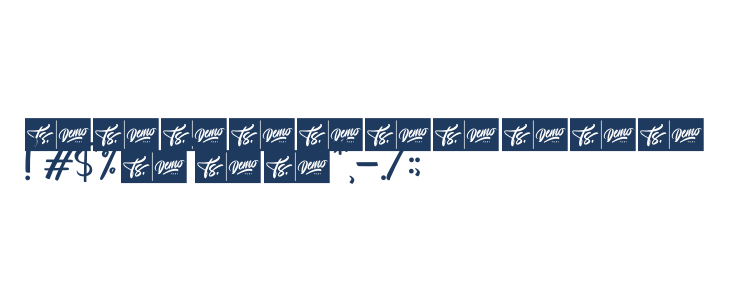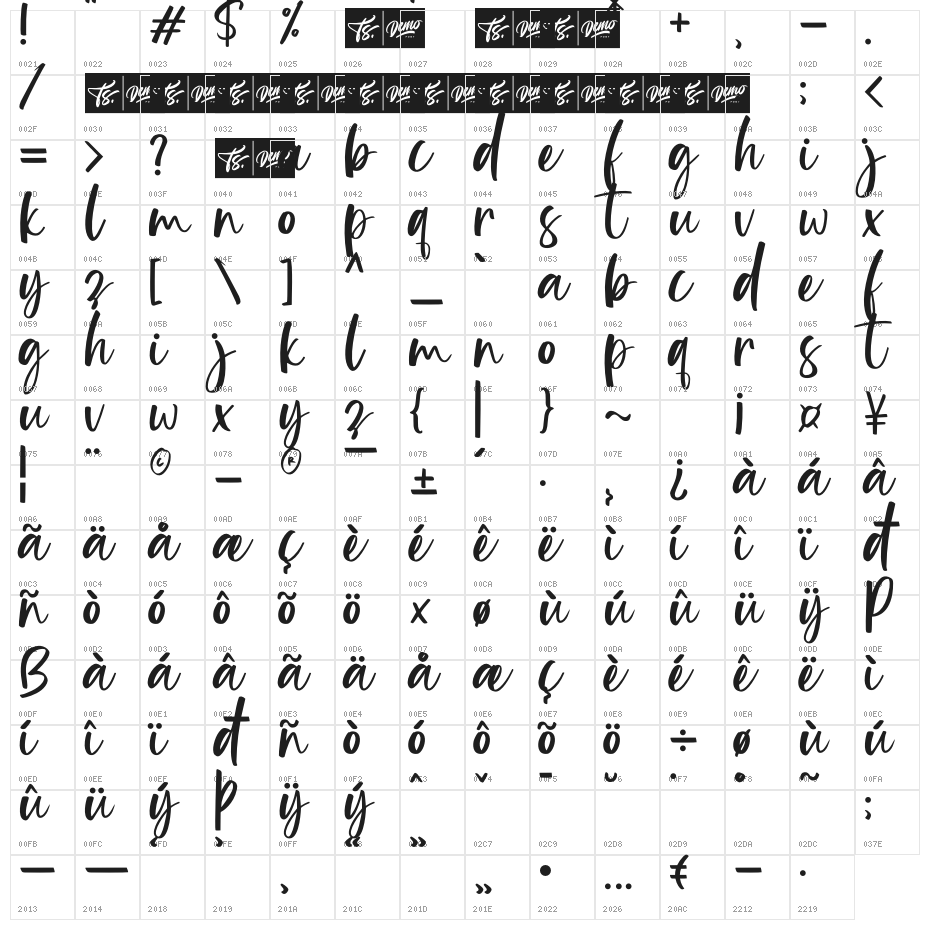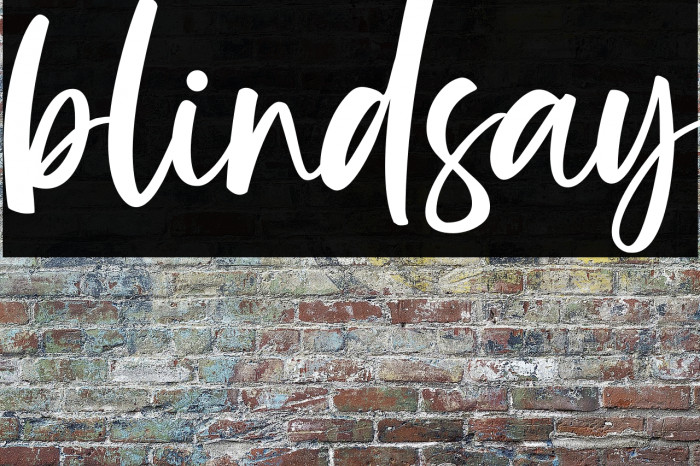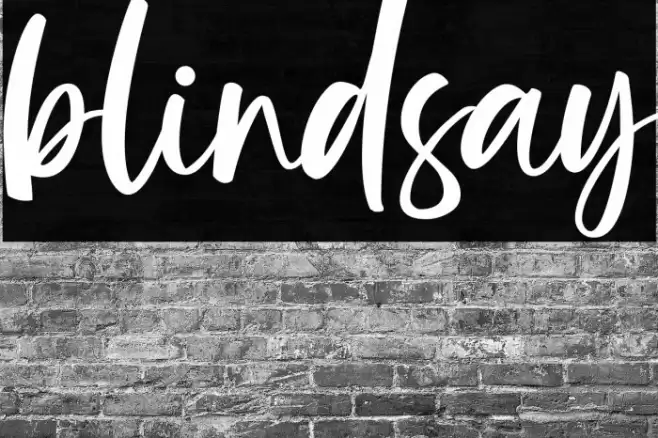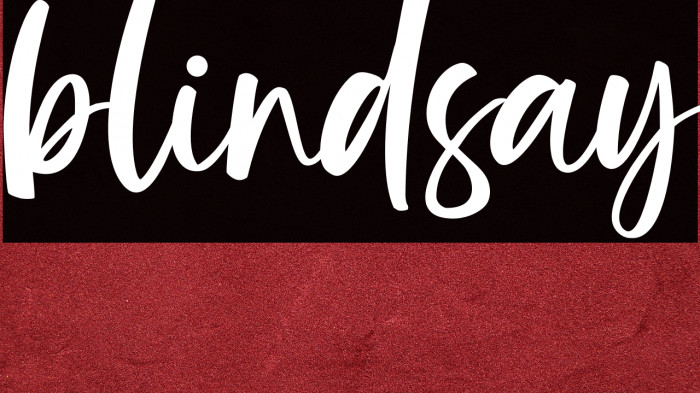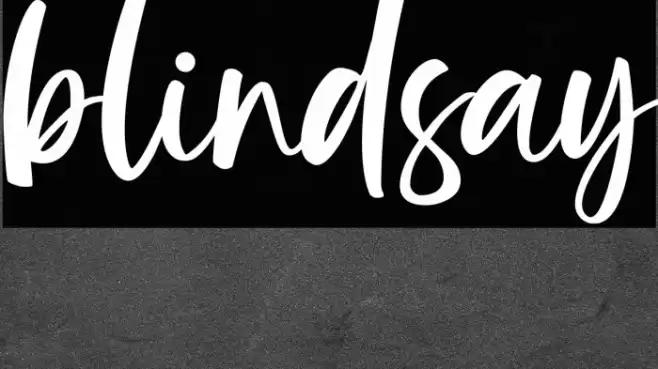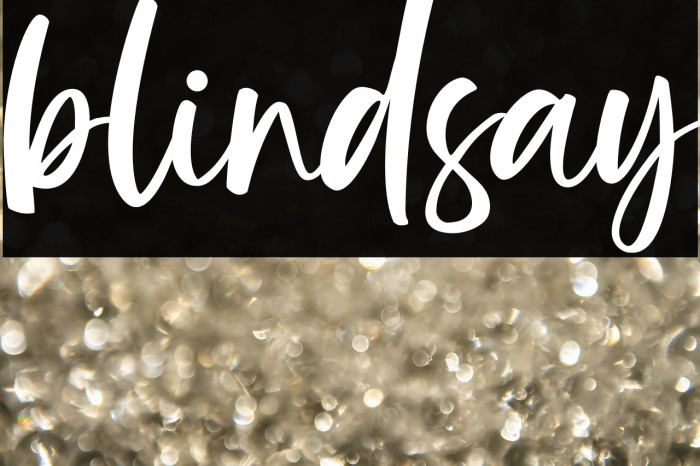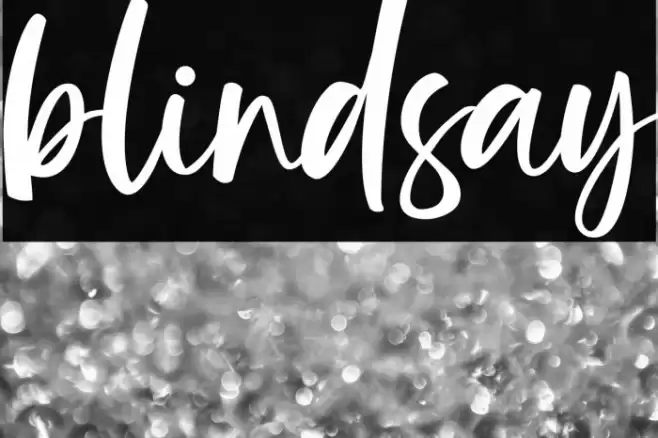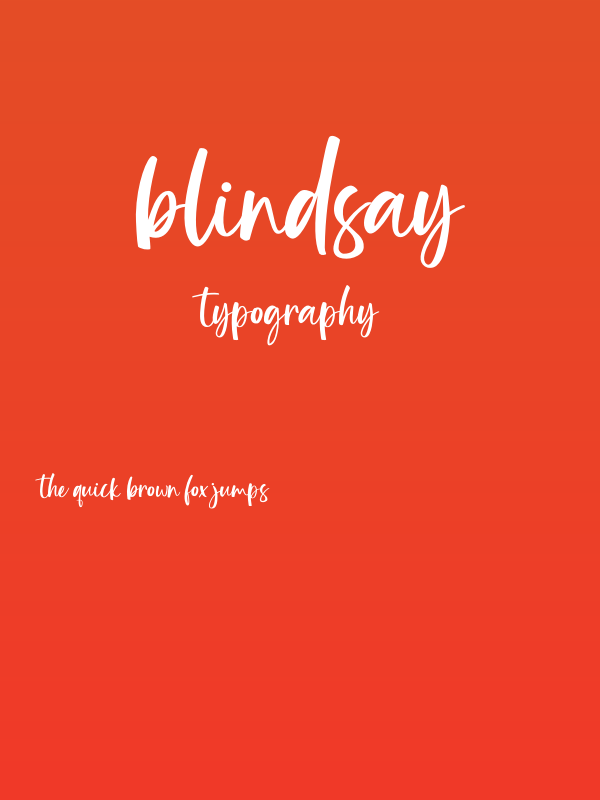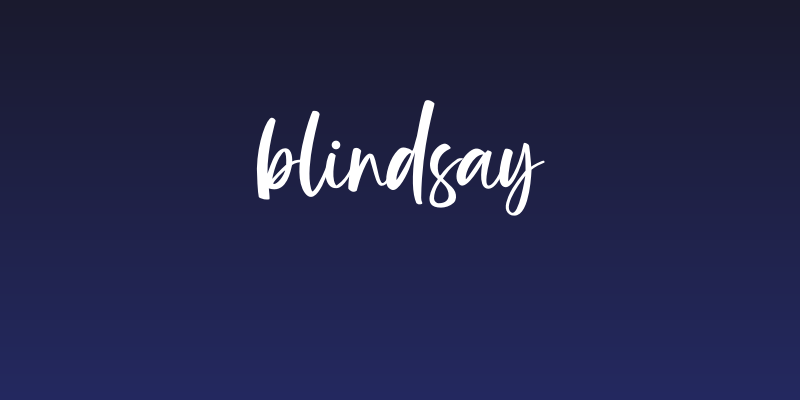
Blindsay Font
Blindsay Description
This font features a lively and expressive handwritten style, characterized by fluid and dynamic strokes that convey a sense of movement and personality. The letters are connected in a cursive manner, with varying stroke widths that add a playful and artistic touch. The uppercase and lowercase letters maintain a consistent style, while the numerals and special characters integrate seamlessly with the overall design. This font's energetic and informal appearance makes it suitable for creative and personal projects.